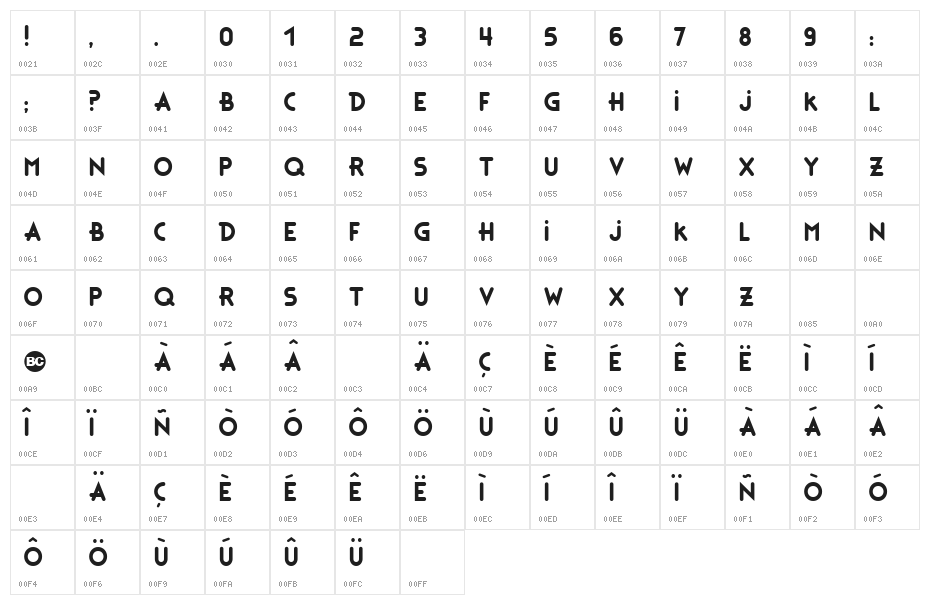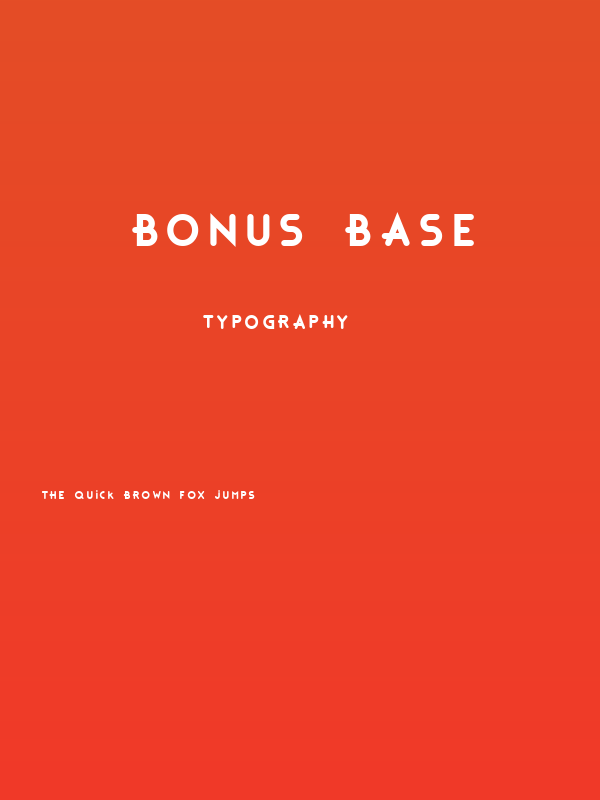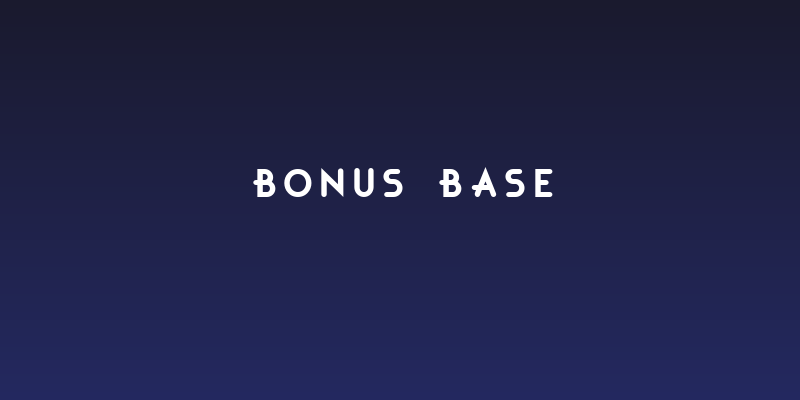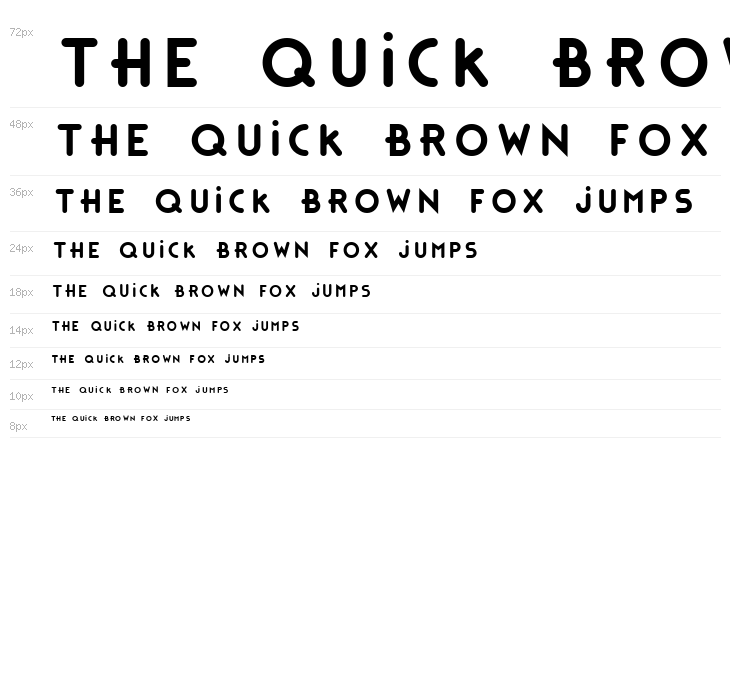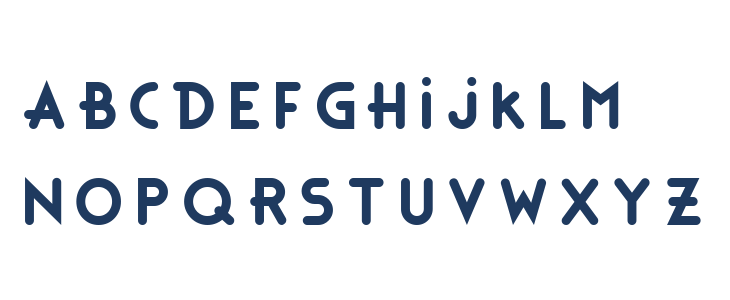
This font features a modern and playful design with rounded edges and a consistent stroke width, giving it a friendly and approachable appearance. The characters are bold and slightly condensed, which enhances readability while maintaining a unique style. The uppercase and lowercase letters share a similar structure, ensuring uniformity across text. Numbers and special characters are designed with the same rounded aesthetic, making them blend seamlessly with the alphabet. The font's simplicity and clarity make it suitable for various applications, from digital interfaces to print media.
| Use Case | Headlines, Logos, Digital Interfaces |
| Proposed Projects | Ideal for branding, children's books, digital interfaces, and advertising campaigns. |